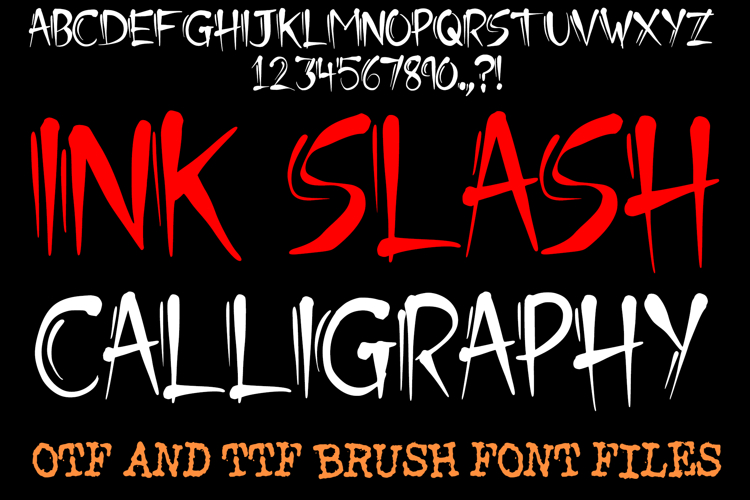
Ink Slash Calligraphy Brush Font is a bold and expressive brush calligraphy font with sharp strokes and dramatic contrast. Designed to bring intensity and style to your work, this typeface blends the raw energy of ink splashes with the elegance of modern calligraphy.
Perfect for logos, posters, tattoos, album covers, streetwear, packaging, and social media graphics, Ink Slash Calligraphy adds a striking handmade touch to any project. Its edgy, artistic look makes it ideal for designers seeking a powerful statement font that stands out.